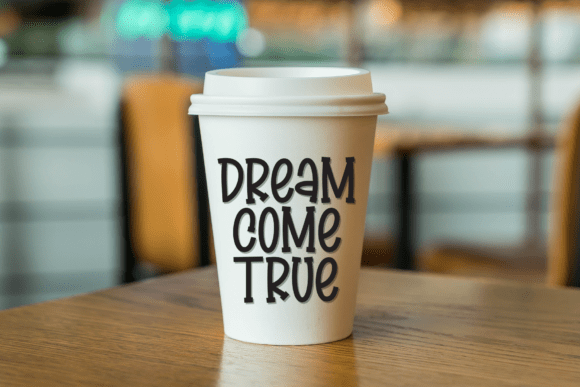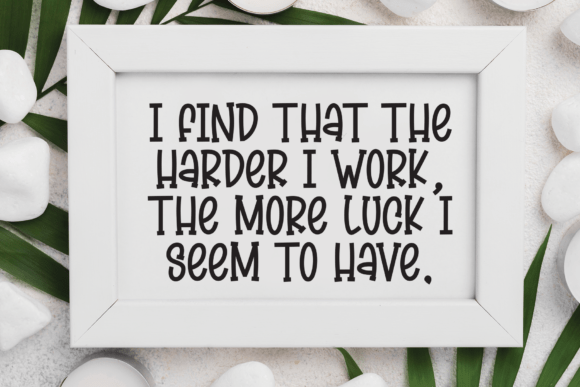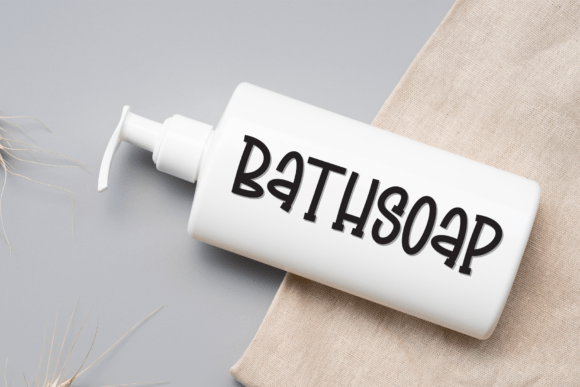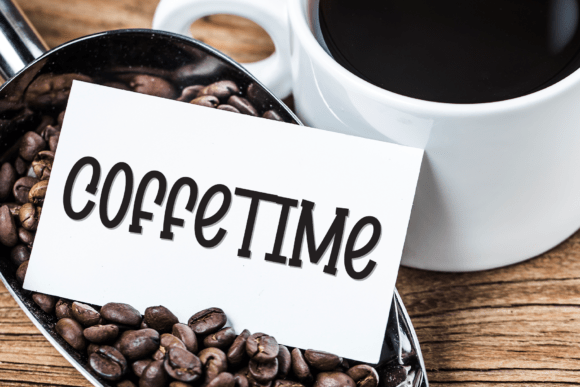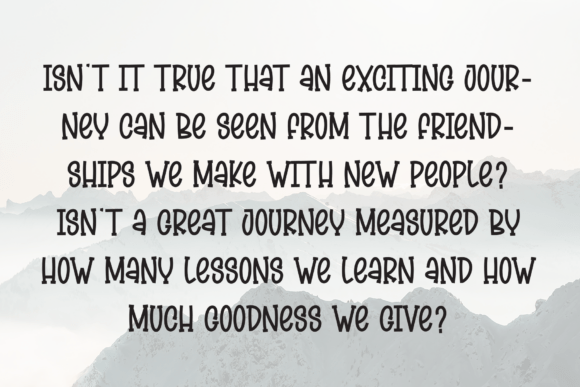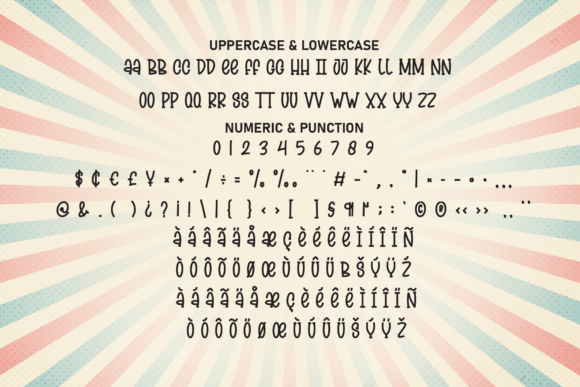
Introduction to Display Retro Font
Discover the irresistible charm of “Display Retro,” a delightfully friendly handwritten display font.
It’s endearing and playful nature shines in every curve, making it the perfect choice for crafting captivating wedding invitations, heartfelt cards, or any other designs that could use a sprinkle of joy This font embodies fun, infusing a heartwarming touch into every creative project you undertake.